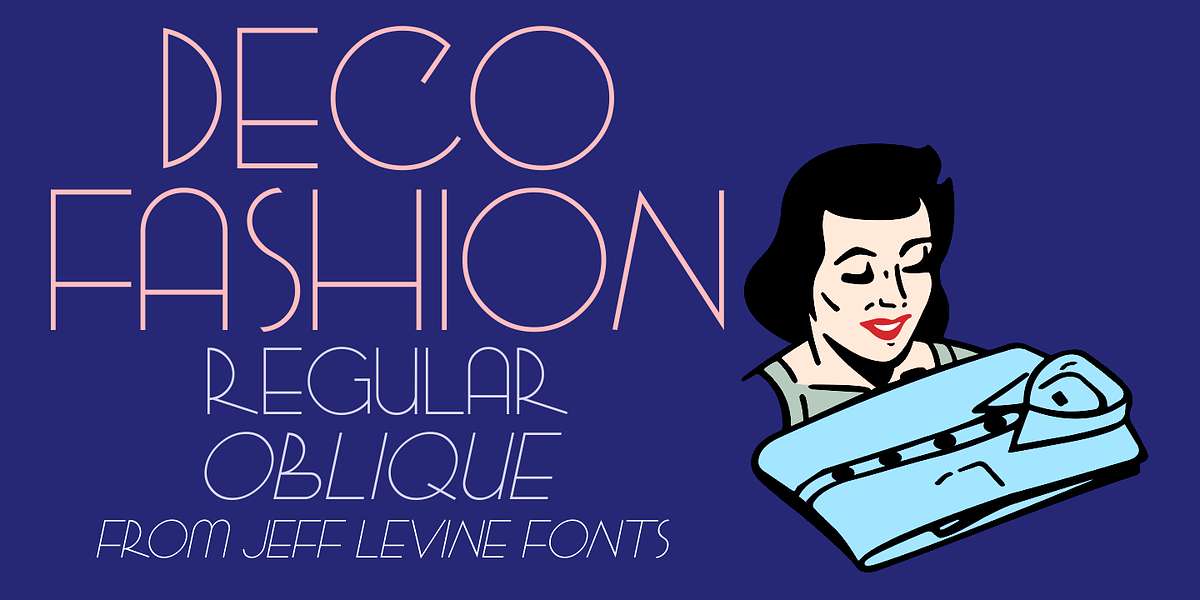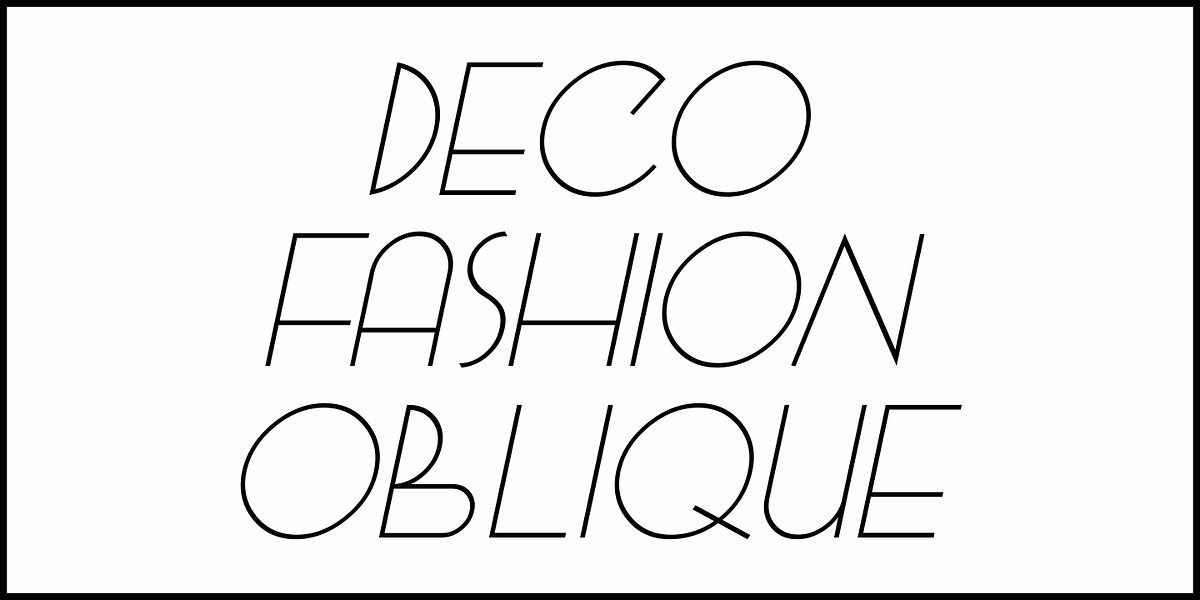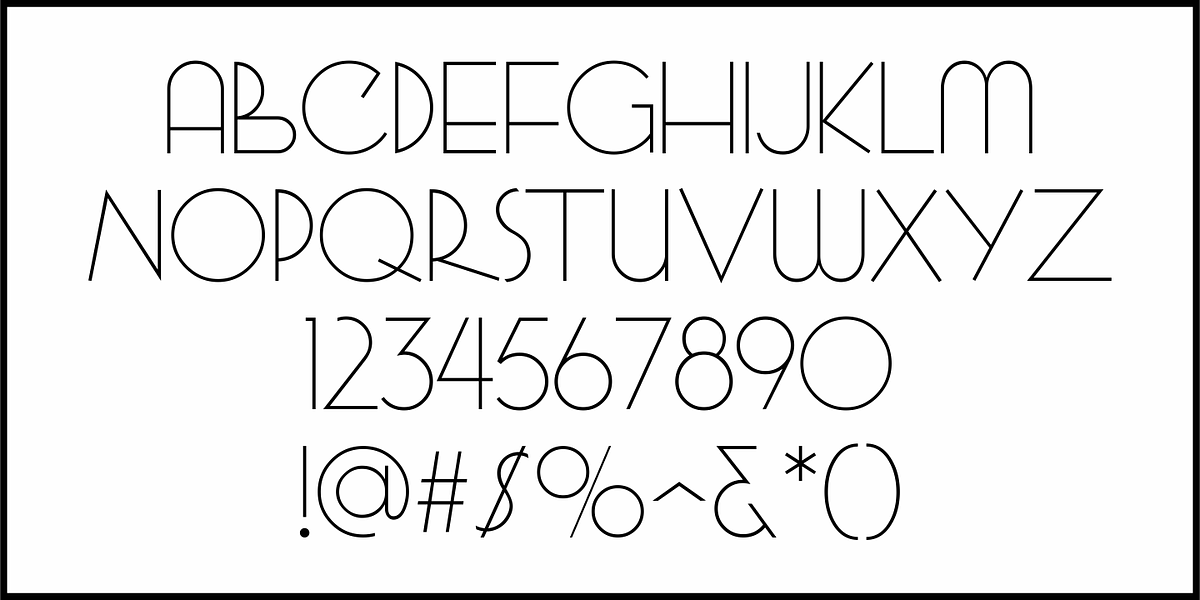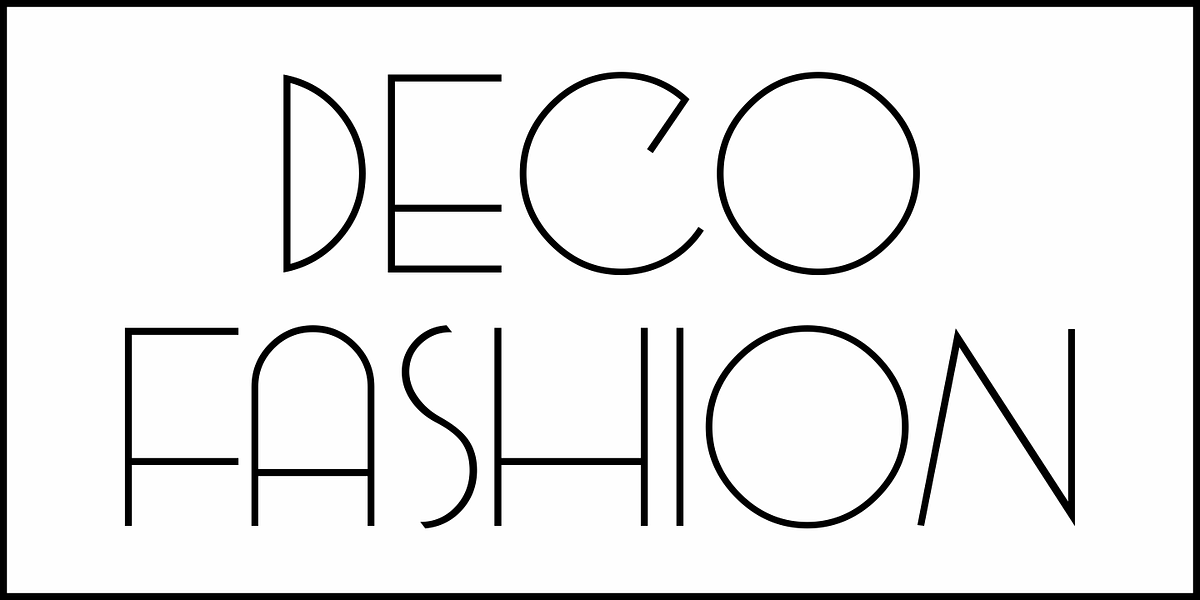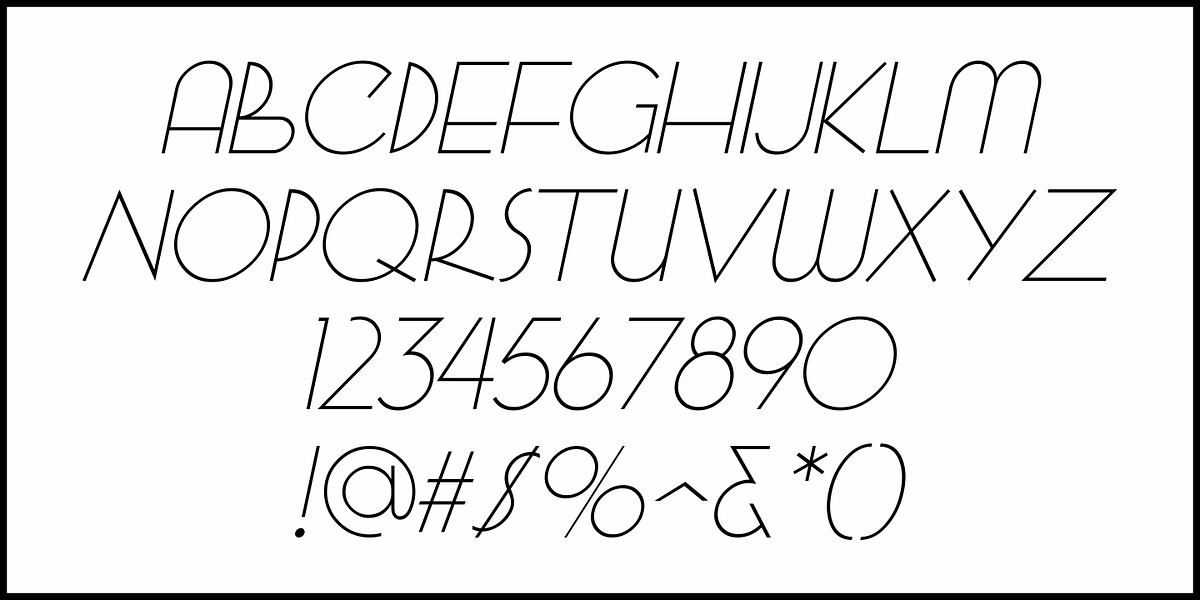
Deco Fashion
An elegant Art Deco monoline sans was found within the pages of Charles T. Powner's "Book of Alphabets" from 1946.
This inspired Deco Fashion JNL. which is available in both regular and oblique versions.